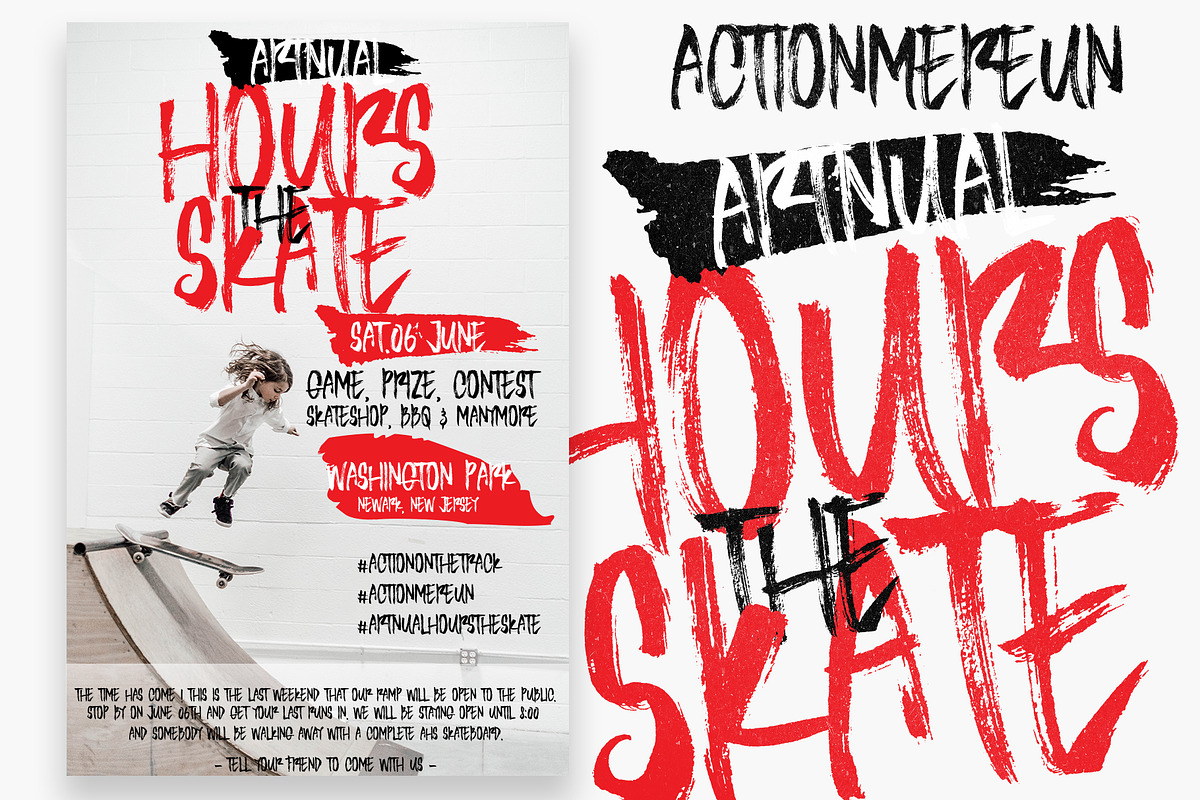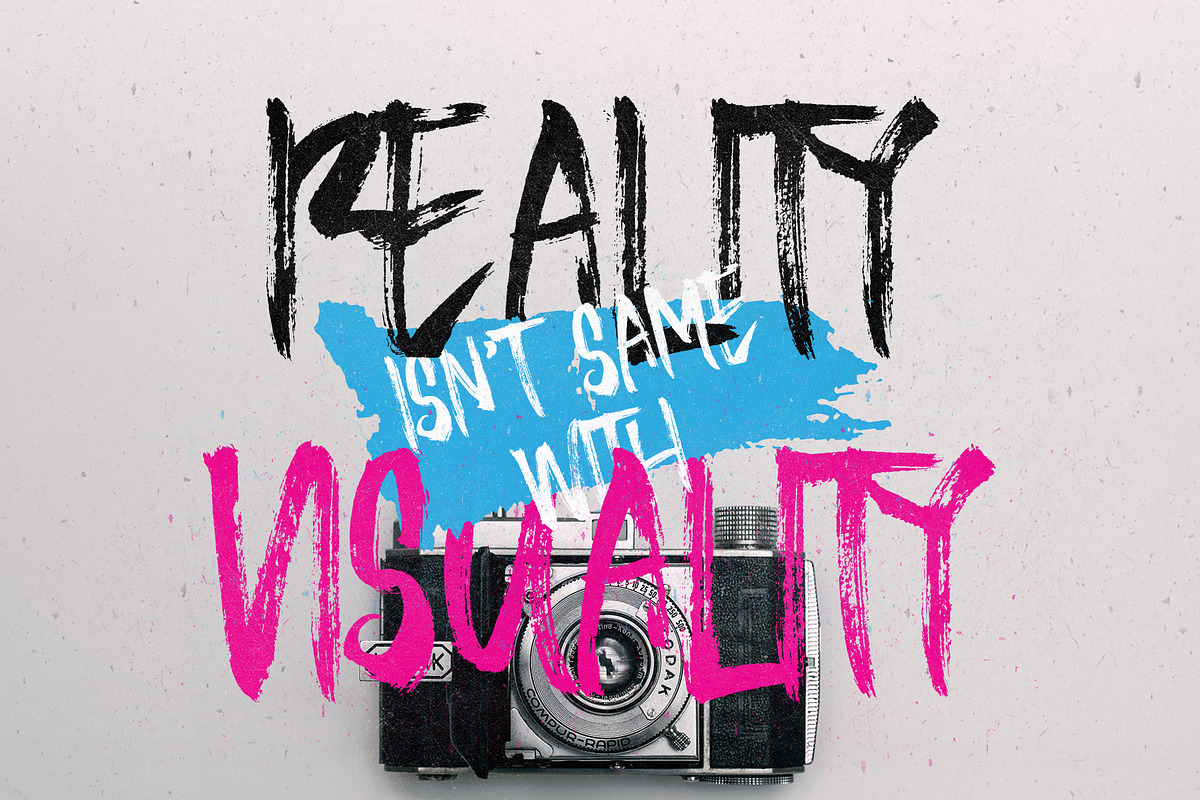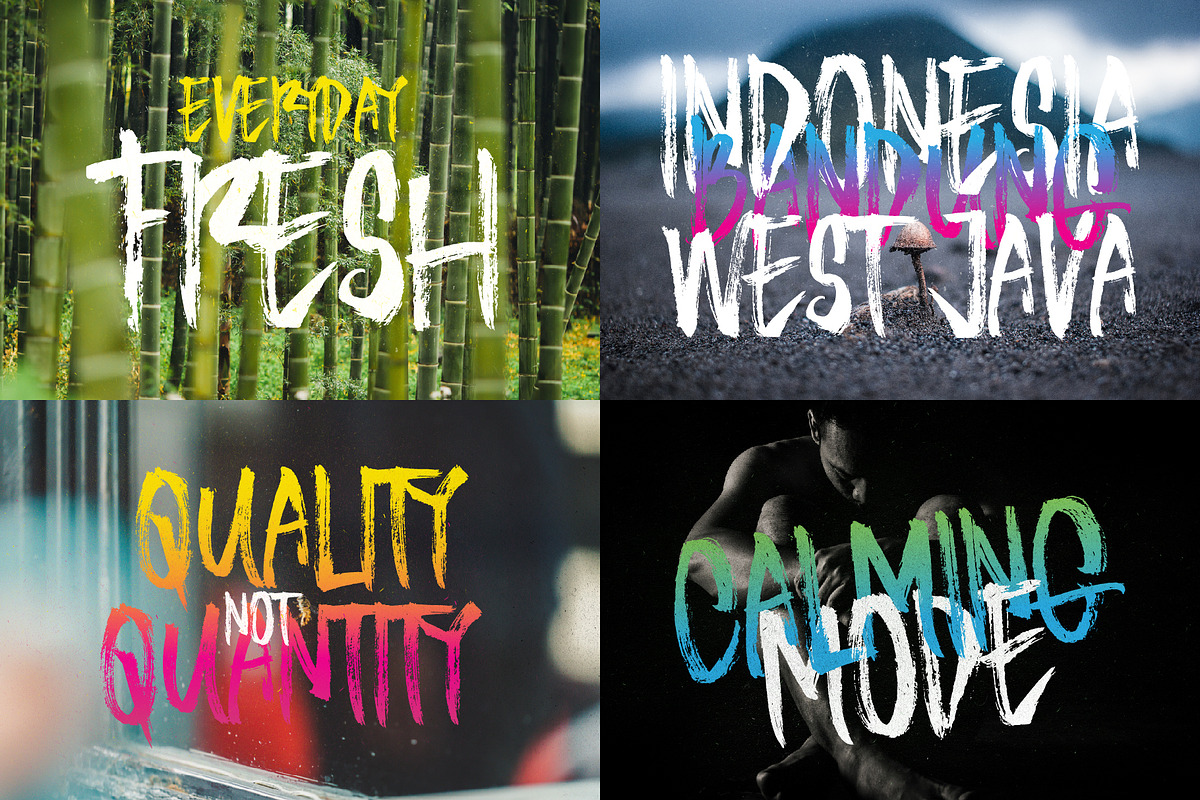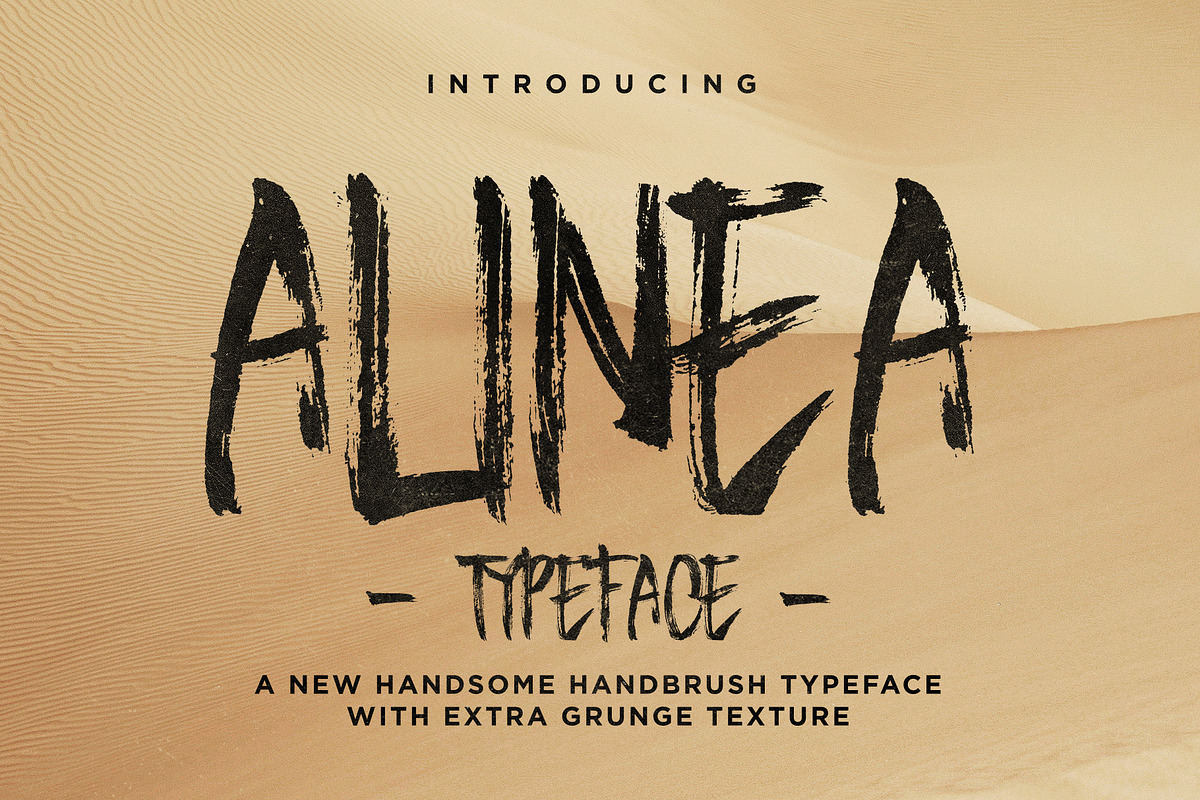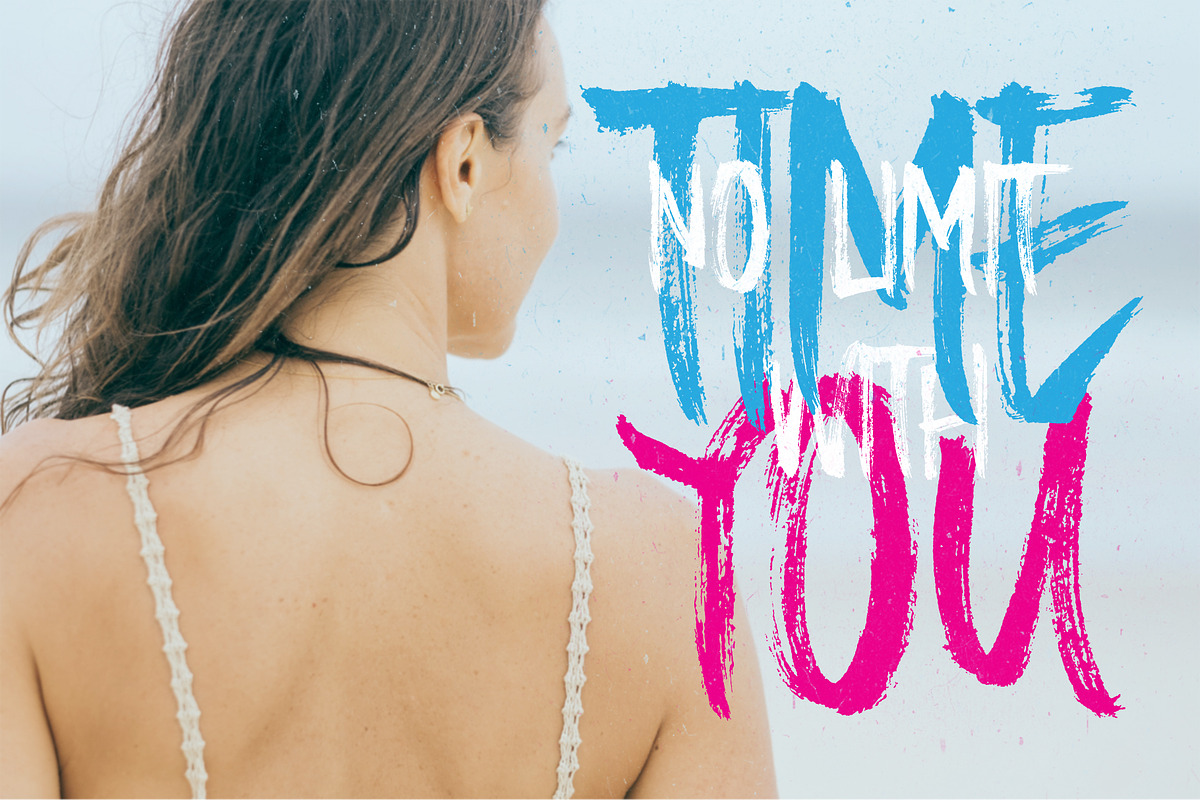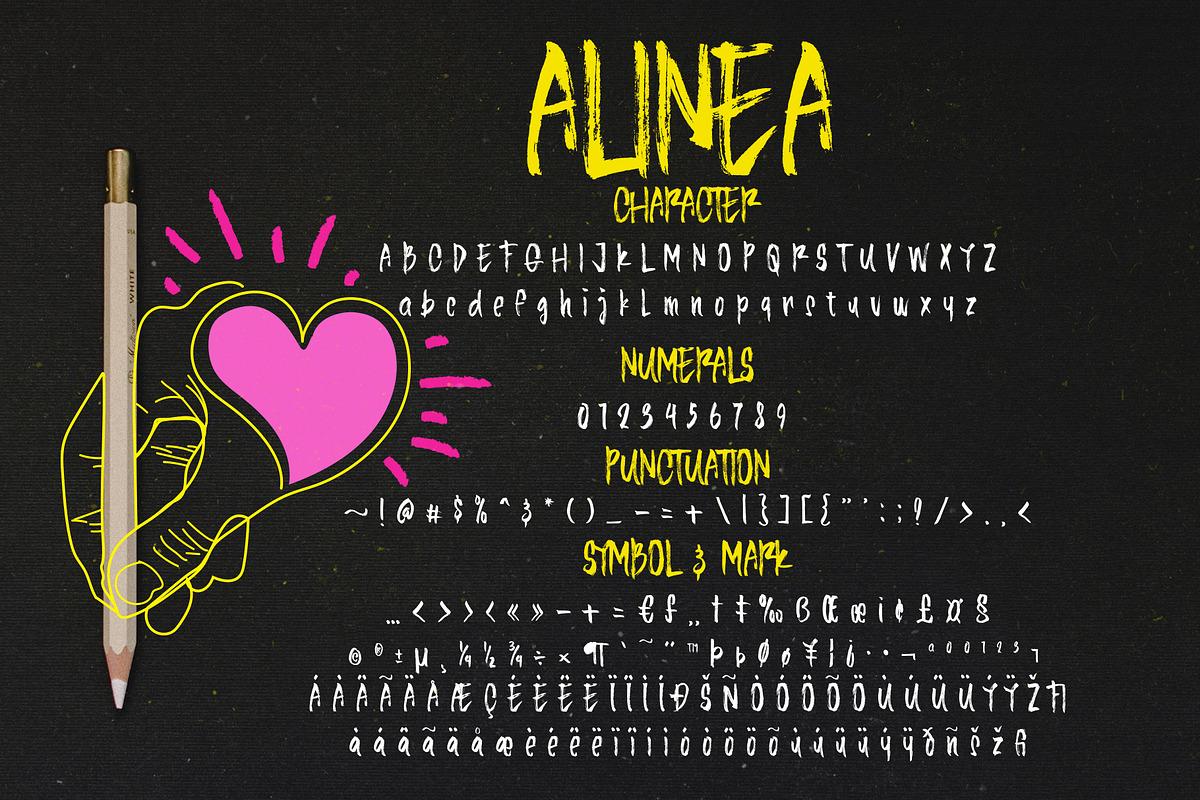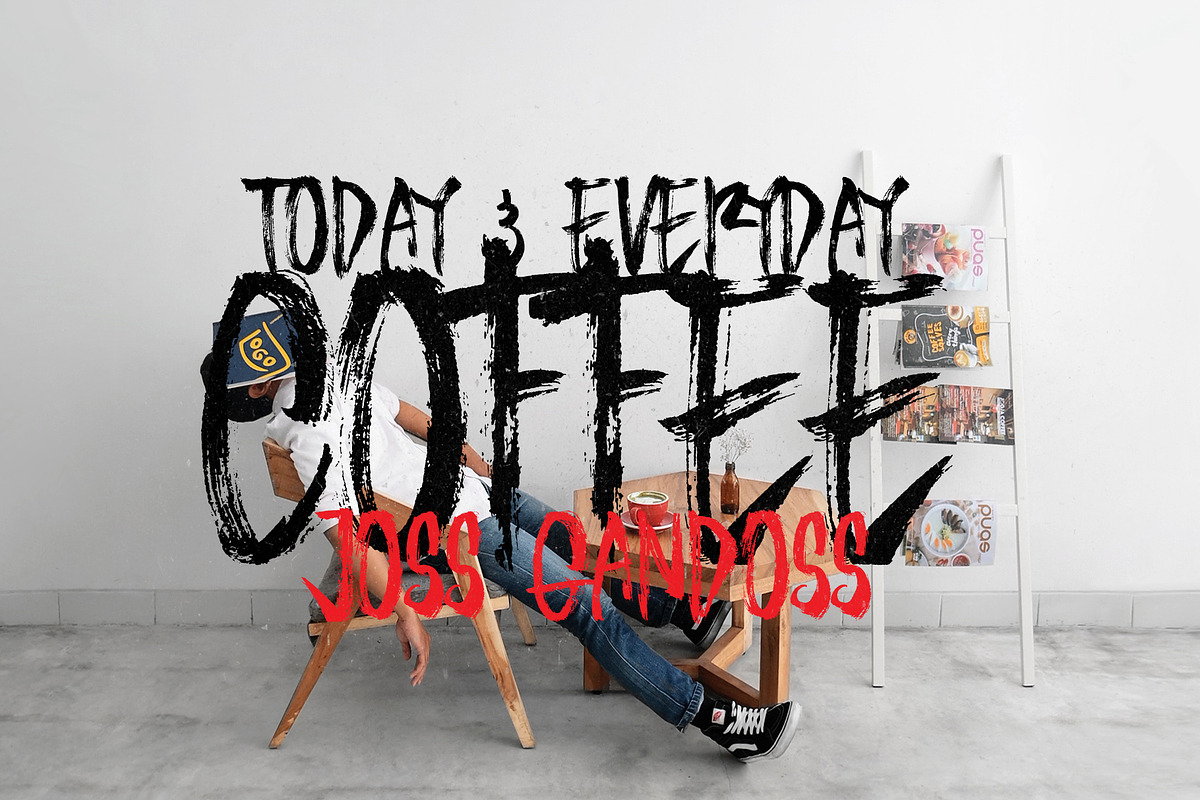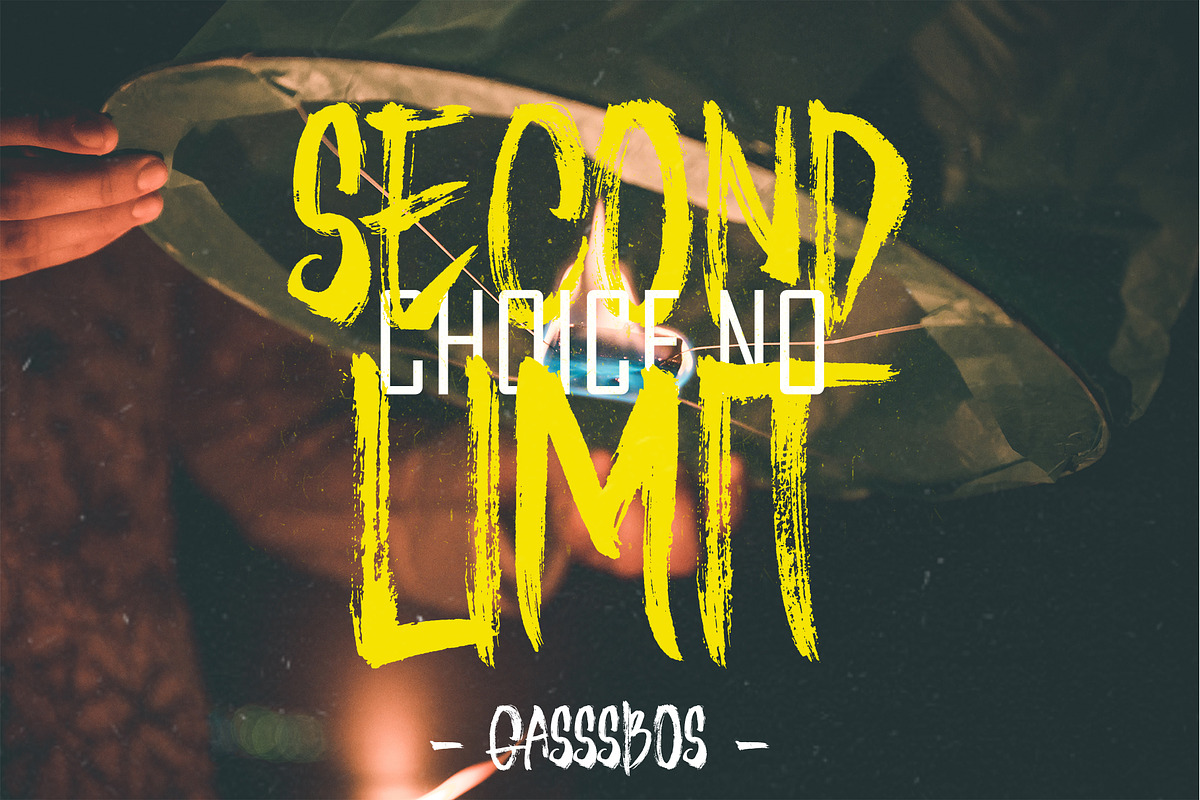
Alinea Typeface
Introduction Alinea Typeface
a new handbrush maker with gentleman style. Always simple and eficience for use. Alinea Typeface have 250 glyph include character, numeran, punctuation, mark & symbol.
Alinea Typeface is good for anything design project such as, poster, display, business card, sign, painting, poster, or anything with sport, adventure, wild, urban, beach theme or etc.
- Alinea Typeface have 250 glyph include character, numeran, punctuation, mark & symbol.